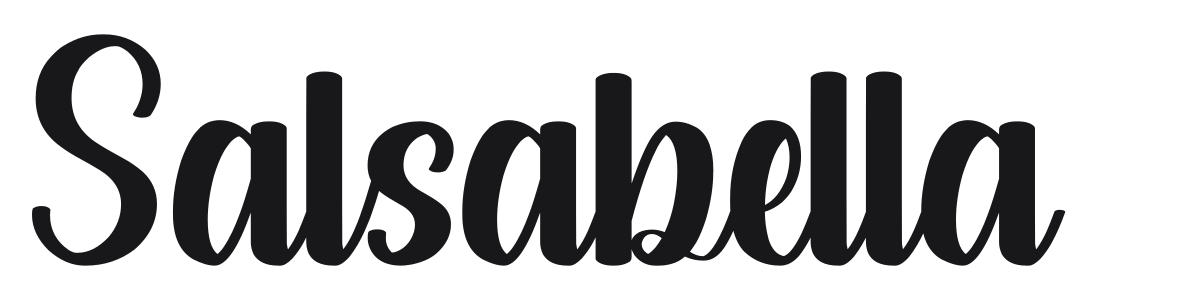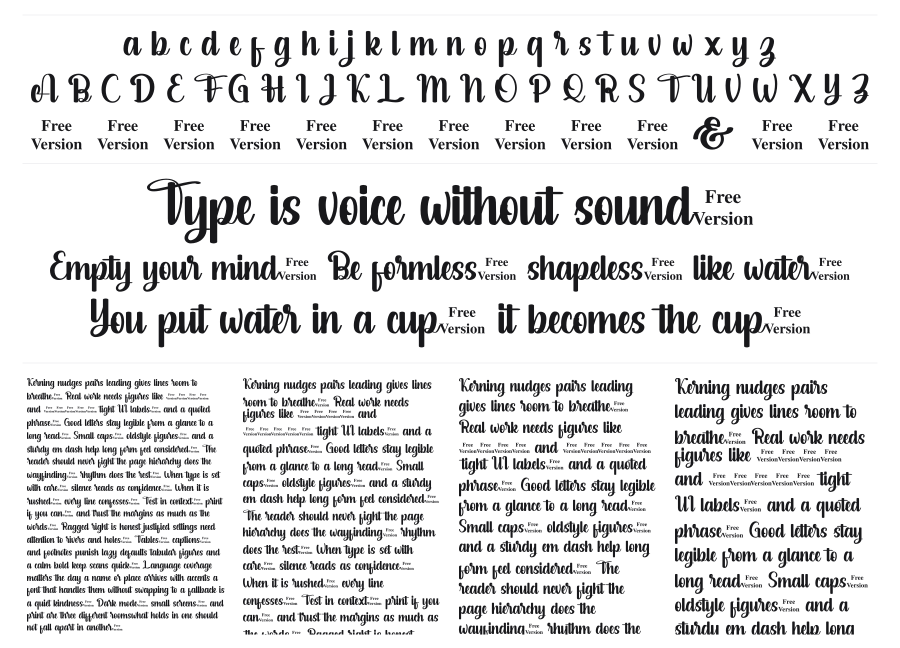
Salsabella
Salsabella is a bold connected casual script with a lively bouncy baseline and strong stroke contrast. The thick ink-heavy downstrokes and sweeping looped terminals give it an expressive hand-lettered character that reads energetic without being frantic. Works well in logotypes, packaging, and any branding that calls for warmth and personality.